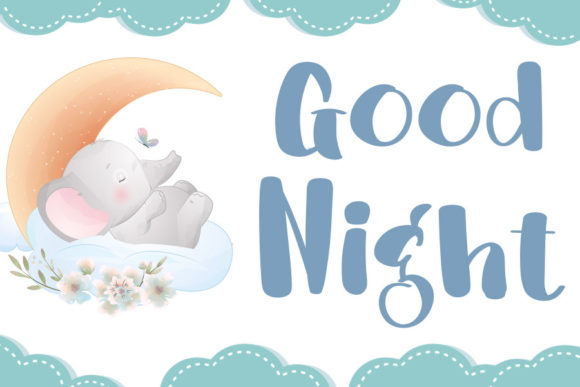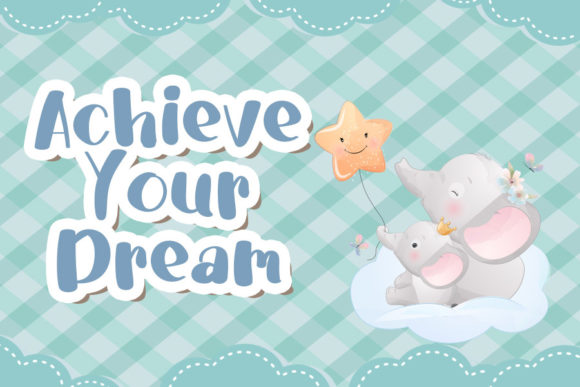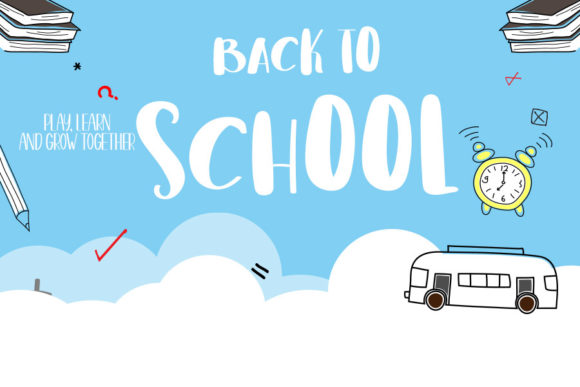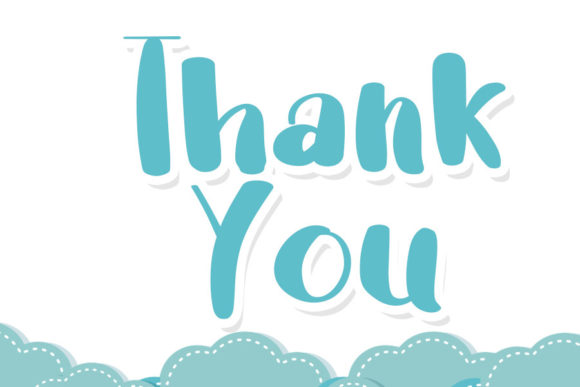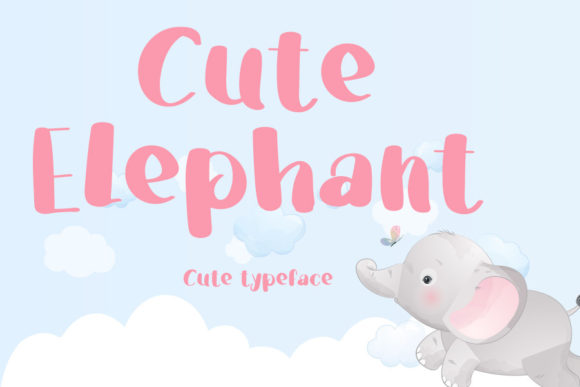
Cute Elephant Font: The Perfect Choice for Playful Designs
Are you a designer or crafter looking for a fun and playful font to add a touch of whimsy to your projects? Look no further than Cute Elephant Font! This delightful display font is perfect for creating eye-catching designs that are sure to bring a smile to anyone’s face.
What is Cute Elephant Font?
Cute Elephant Font is a unique and charming font that features playful letters that are sure to capture the attention of your audience. Its fun and carefree design makes it the perfect choice for a variety of projects, from apparel designs to notebooks, stationery, labels, name tags, comics, and more!
Characteristics of Cute Elephant Font
Cute Elephant Font has several characteristics that make it stand out from other fonts. Some of its key features include:
- Playful letters: The font features playful and whimsical letters that are sure to add a touch of fun to your designs.
- Display font: Cute Elephant Font is a display font, making it perfect for headlines, titles, and other attention-grabbing elements.
- Versatile: The font is versatile and can be used for a variety of projects, from digital designs to print materials.
Uses for Cute Elephant Font
Cute Elephant Font is a versatile font that can be used for a wide range of projects. Some of the most popular uses for this font include:
- Apparel designs: Add a touch of whimsy to your t-shirt designs, hoodies, and other apparel with Cute Elephant Font.
- Notebooks and stationery: Create fun and playful notebooks, journals, and stationery with this delightful font.
- Labels and name tags: Use Cute Elephant Font to create eye-catching labels and name tags for parties, events, and more.
- Comics and illustrations: Add a touch of playfulness to your comics and illustrations with this fun and quirky font.
Why Choose Cute Elephant Font?
There are many reasons why Cute Elephant Font is the perfect choice for designers and crafters. Some of the benefits of using this font include:
- Unique and eye-catching: Cute Elephant Font is a unique and eye-catching font that is sure to capture the attention of your audience.
- Easy to read: Despite its playful design, Cute Elephant Font is easy to read and can be used for both headlines and body text.
- Versatile: The font is versatile and can be used for a wide range of projects, from digital designs to print materials.
Tips for Using Cute Elephant Font
Here are a few tips for using Cute Elephant Font in your designs:
- Use it sparingly: Cute Elephant Font is a bold and attention-grabbing font, so use it sparingly to avoid overwhelming your design.
- Pair it with other fonts: Pair Cute Elephant Font with other fonts to create a unique and visually appealing design.
- Experiment with colors: Cute Elephant Font looks great in a variety of colors, so don’t be afraid to experiment and find the perfect color for your design.
Cute Elephant Font is a fun and playful display font that is perfect for designers and crafters looking to add a touch of whimsy to their projects. With its unique and eye-catching design, versatility, and ease of use, this font is sure to become a favorite in your design arsenal. So why wait? Download Cute Elephant Font today and start creating playful and eye-catching designs that are sure to delight!
Whether you’re a seasoned designer or a crafter just starting out, Cute Elephant Font is the perfect choice for anyone looking to add a touch of fun and playfulness to their designs. So go ahead, get creative, and have fun with Cute Elephant Font!